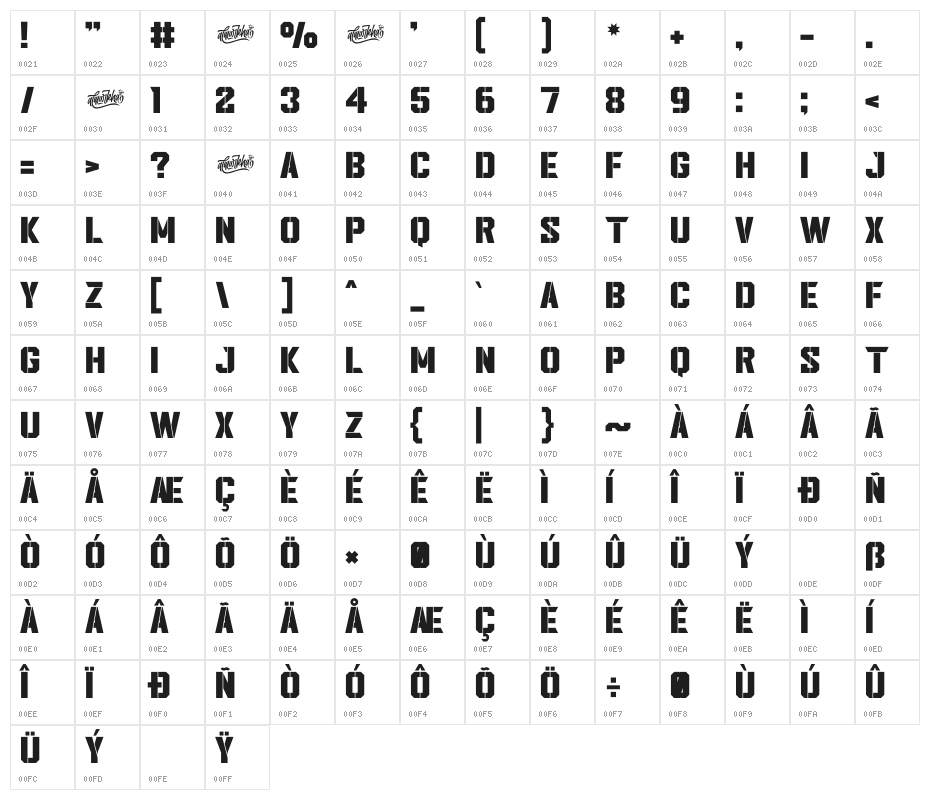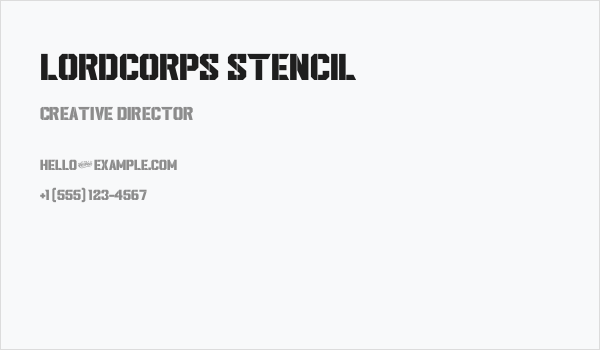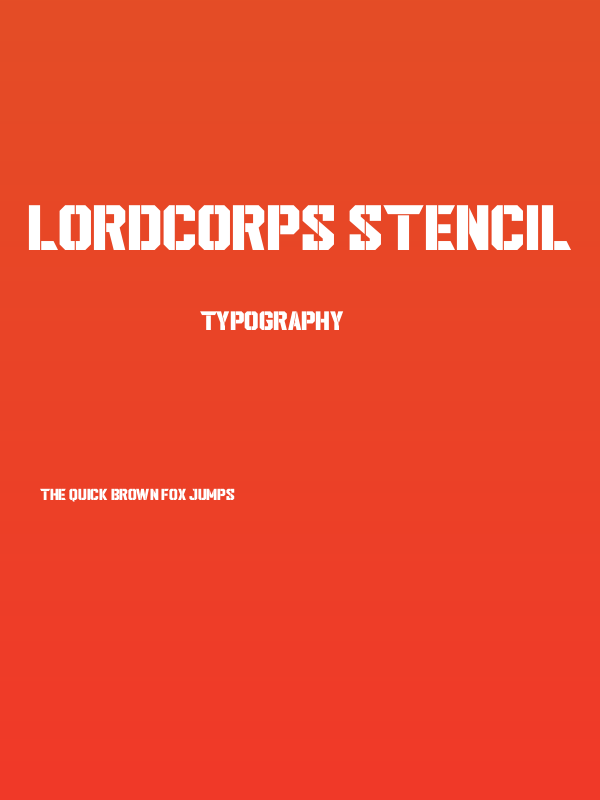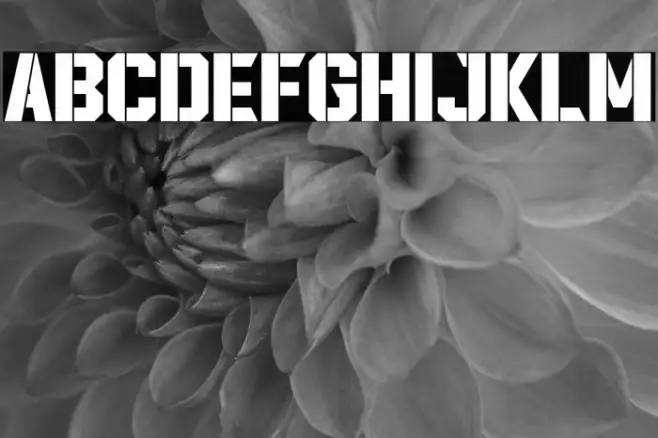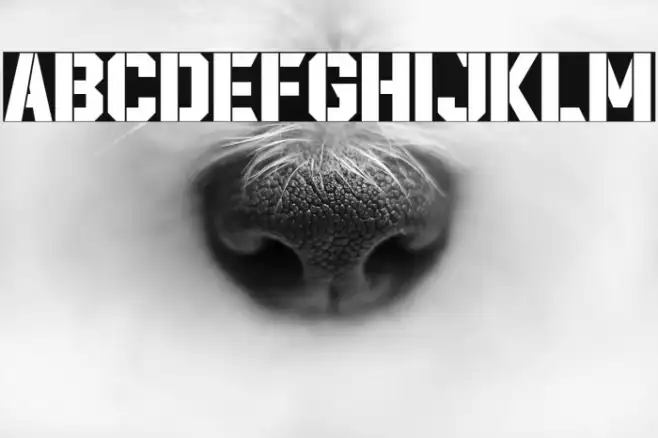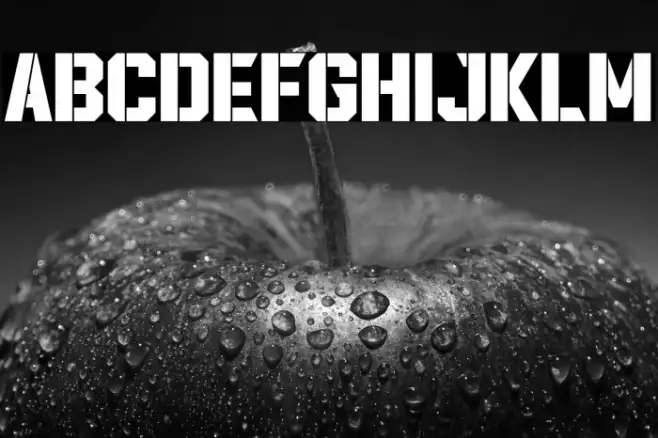
Lordcorps Stencil Font
Lordcorps Stencil Description
This font features a bold, stencil-like design with strong geometric shapes and sharp angles. The uppercase letters are particularly striking, with solid, blocky forms that convey a sense of strength and stability. The characters are designed with cut-out sections, typical of stencil fonts, which adds an industrial and rugged aesthetic. The numbers and special characters maintain this bold style, ensuring consistency across all elements. The font's design is highly legible, making it suitable for impactful headlines and signage. Its unique style can capture attention and convey a modern, edgy feel.
| Use Case | Headlines, Logos, Signage |
| Proposed Projects | Ideal for military-themed designs, industrial branding, posters, and signage. |